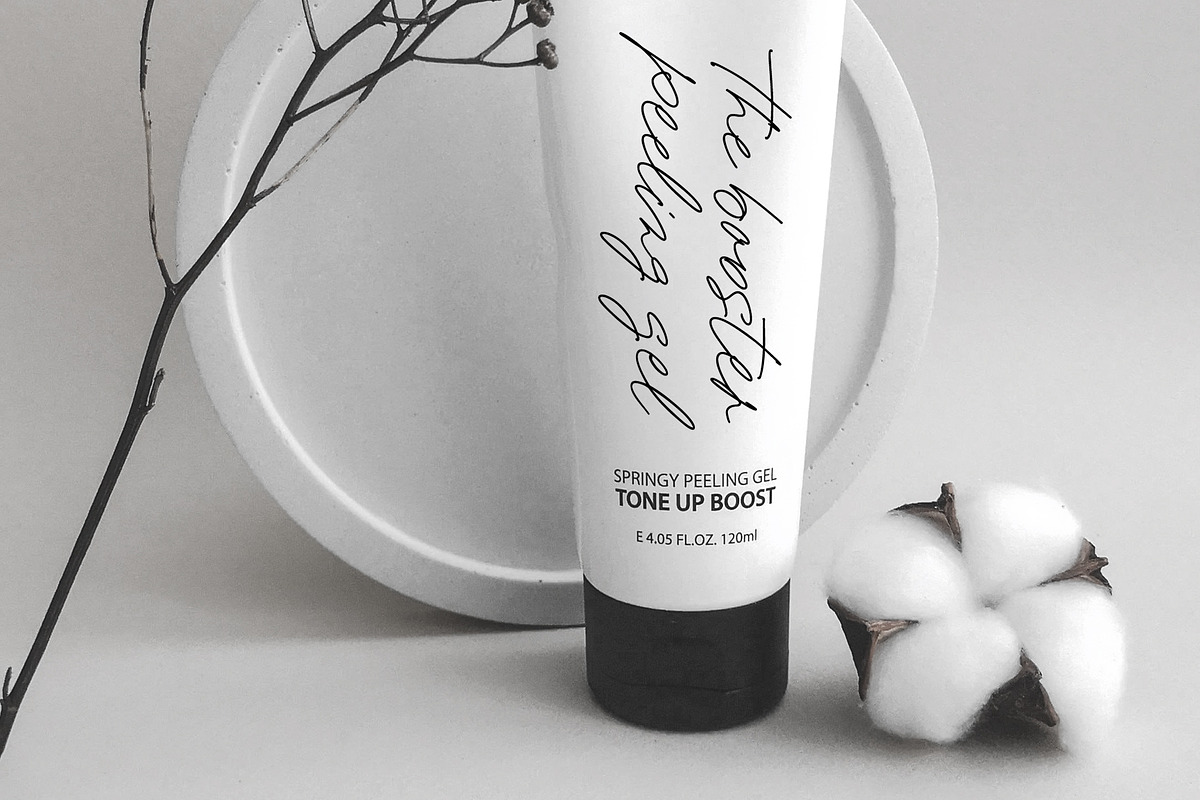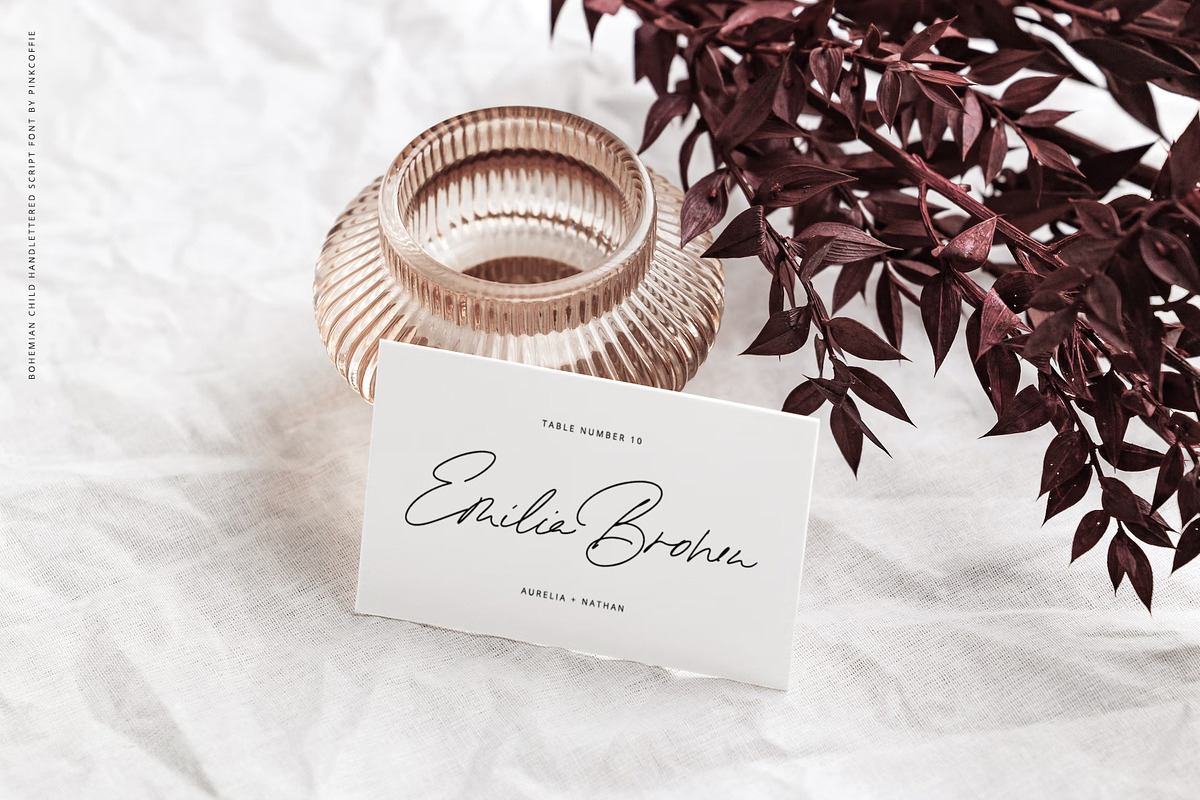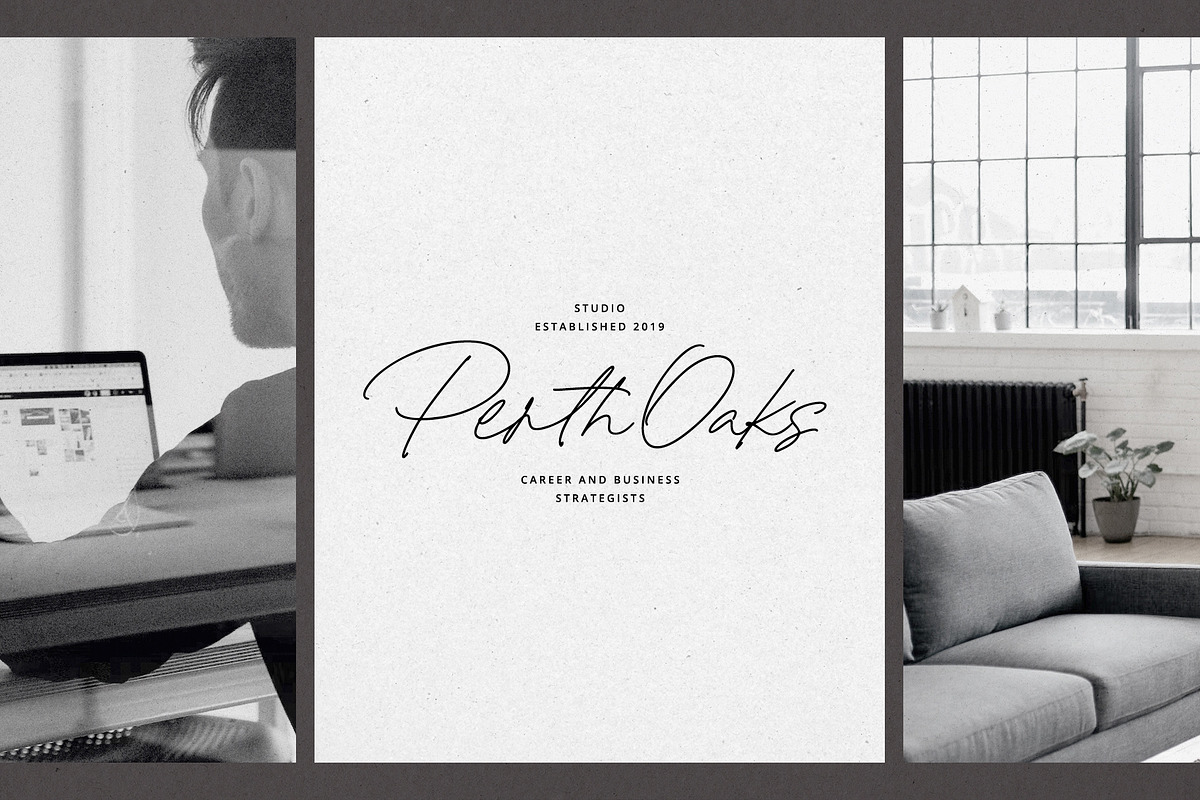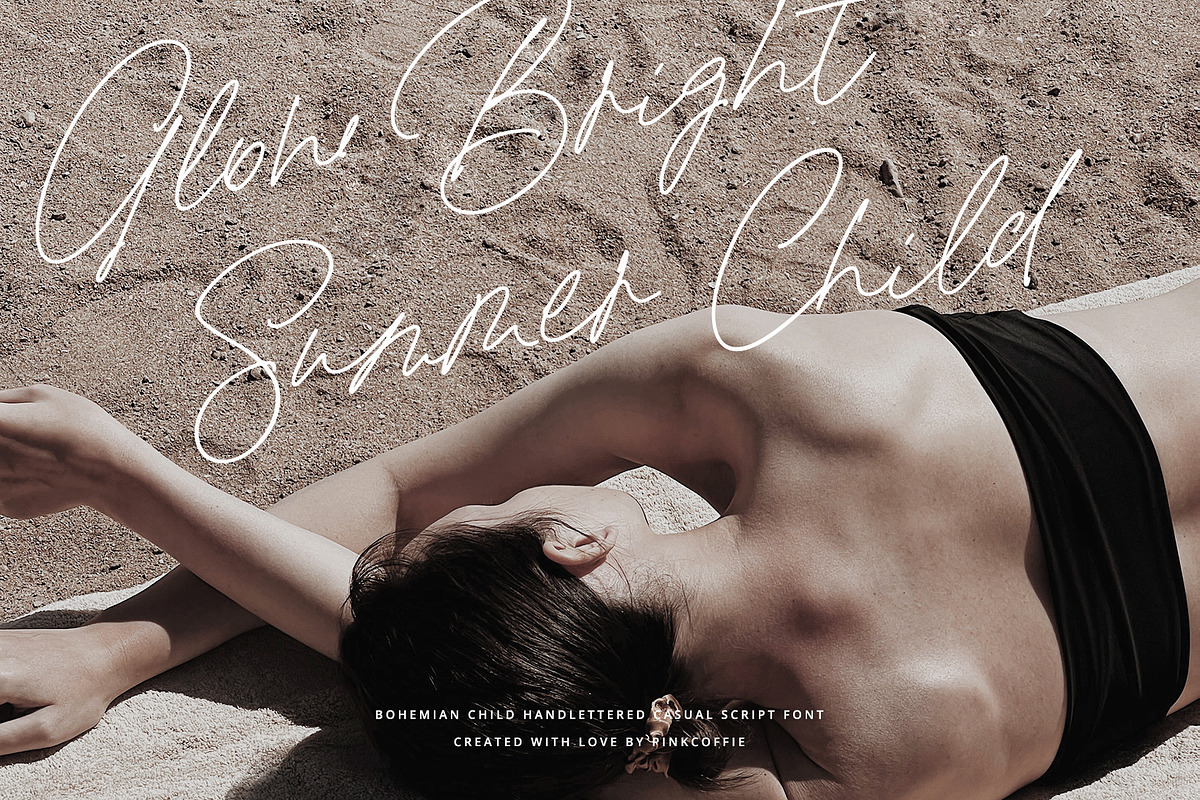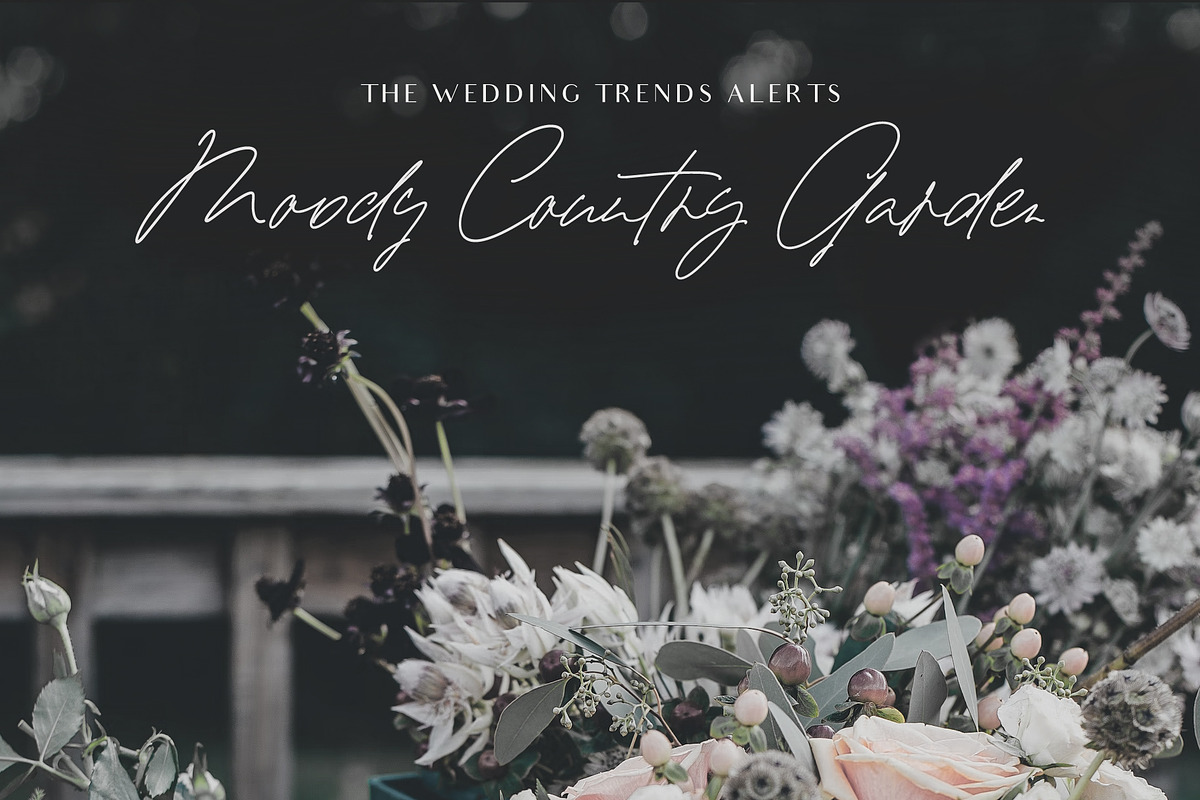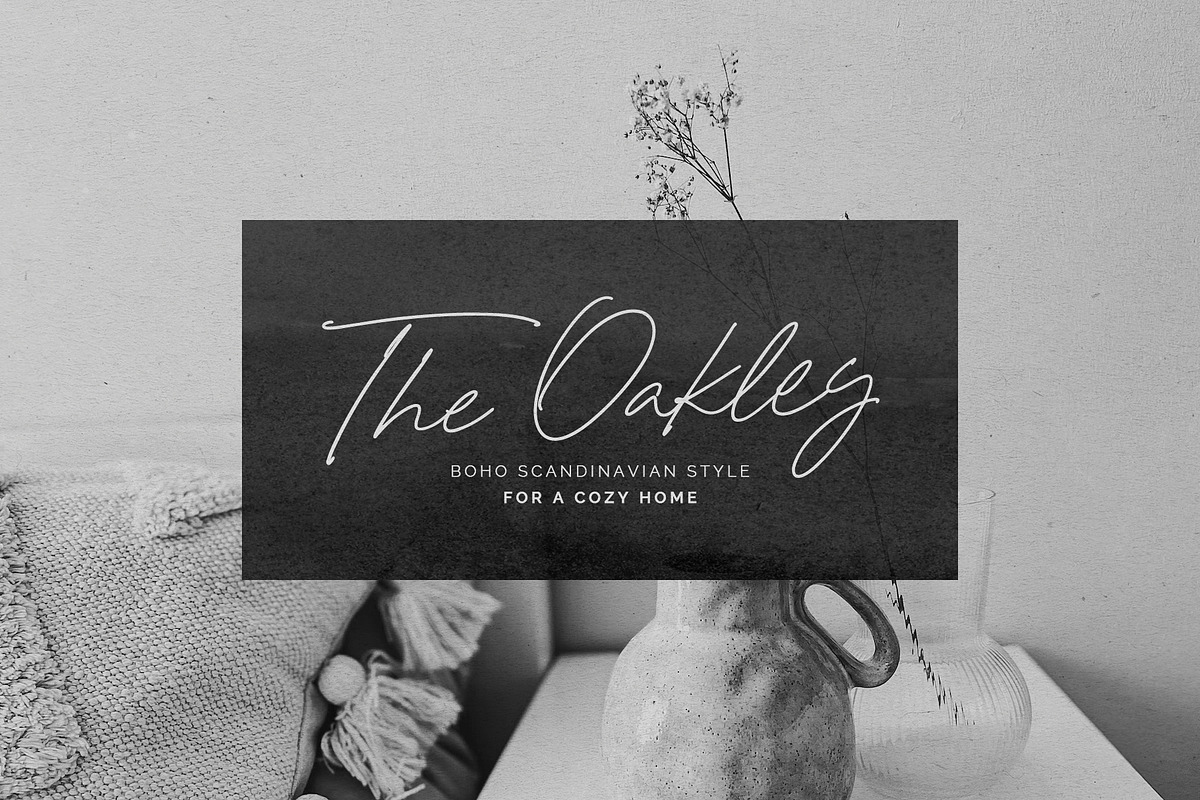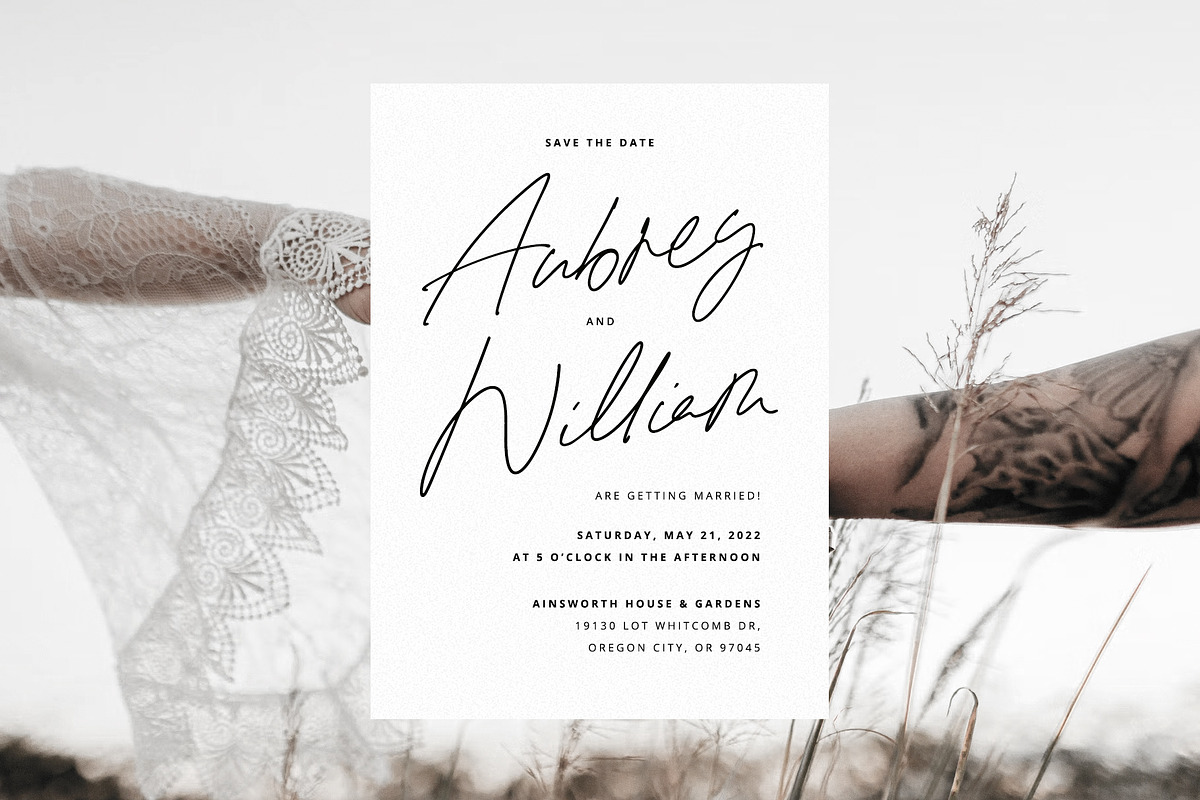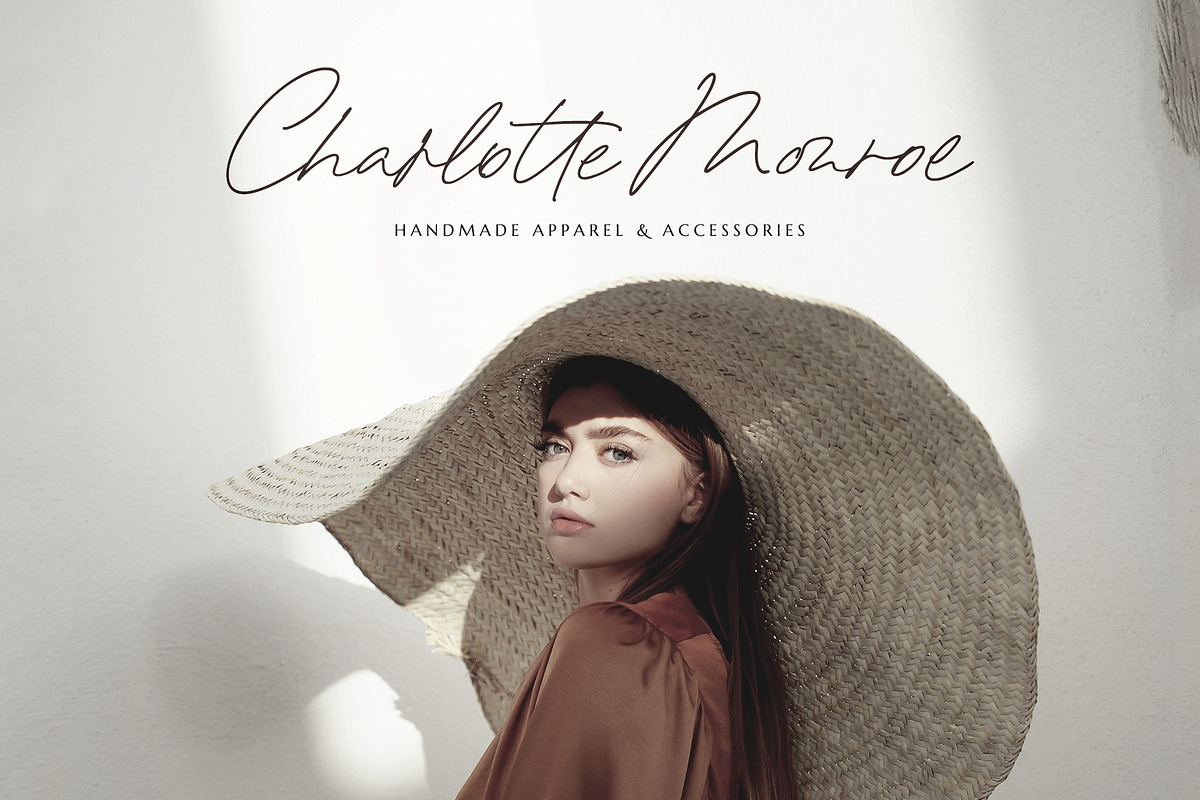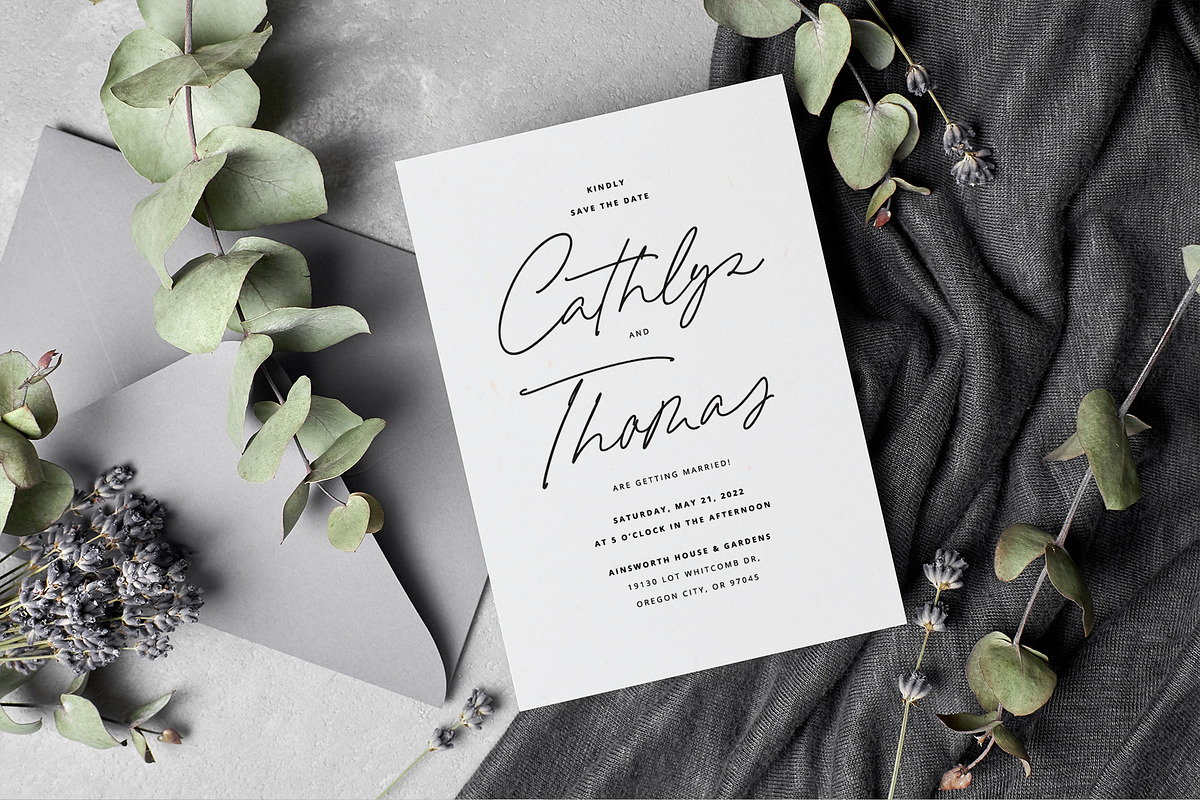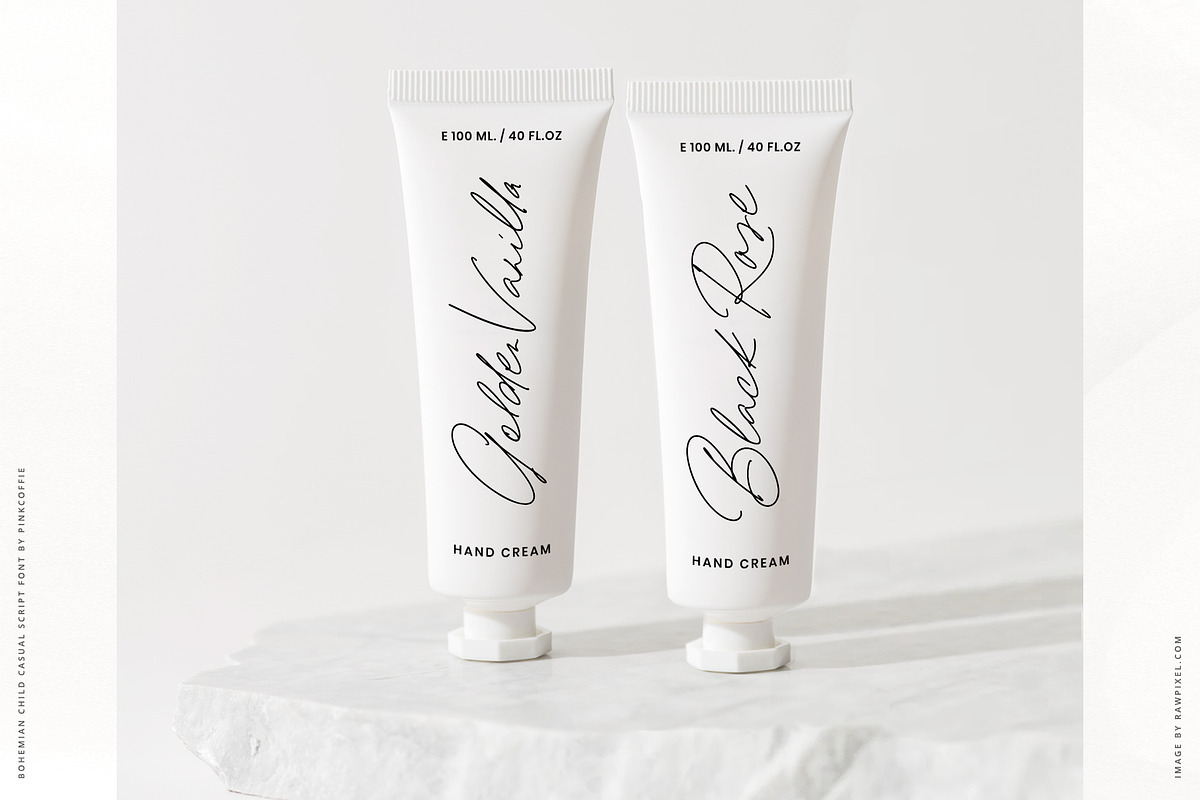
Bohemian Child | Handwritten Script
Say hello to Bohemian Child, a casual chic hand-lettered script inspired by the carefree bohemian vibe, featuring two lowercase letter sets, 64 extra OpenType ligatures for a more natural look, bonus letter alternates, and premade ending swashes to mix and match.
Bohemian Child is versatile enough for both print and web, and can be used in a variety of projects, such as modern stationery, packaging, apparel, wedding stationery, prints, quotes, social media graphics, planners, greeting cards, logos, branding, and much much more.
LIGATURES: ki in is rt nt ont en on ad el as ck es ro um ut ol ia gn ca yn ass ess iss oss os us uss ell oll inn em am all io fi Co. St aa bb cc dd ee ff gg hh ii jj kk ll mm nn oo pp qq rr ss tt uu vv ww xx yy zz
MULTILINGUAL SUPPORT: The script includes multilingual support and the following multi-lingual characters: ÁĂÂÄÀĀĄÅÃÆĆČÇÐĎÉĚÊËĖÈĒĘÍÎÏÌĪĮĹĽŁŃŇÑÓÔÖÒŐŌØÕŔŘŚŠŞŤÚÛÜÙŰŪŲŮÝŹŽŻ áăâäàāąåãæćčçċďđéěêëėèēęğġíîïìīįĺľłńňñóöòőōøõŕřśšşßťúûüùűūųůẃŵẅẁýŷÿỳźžż